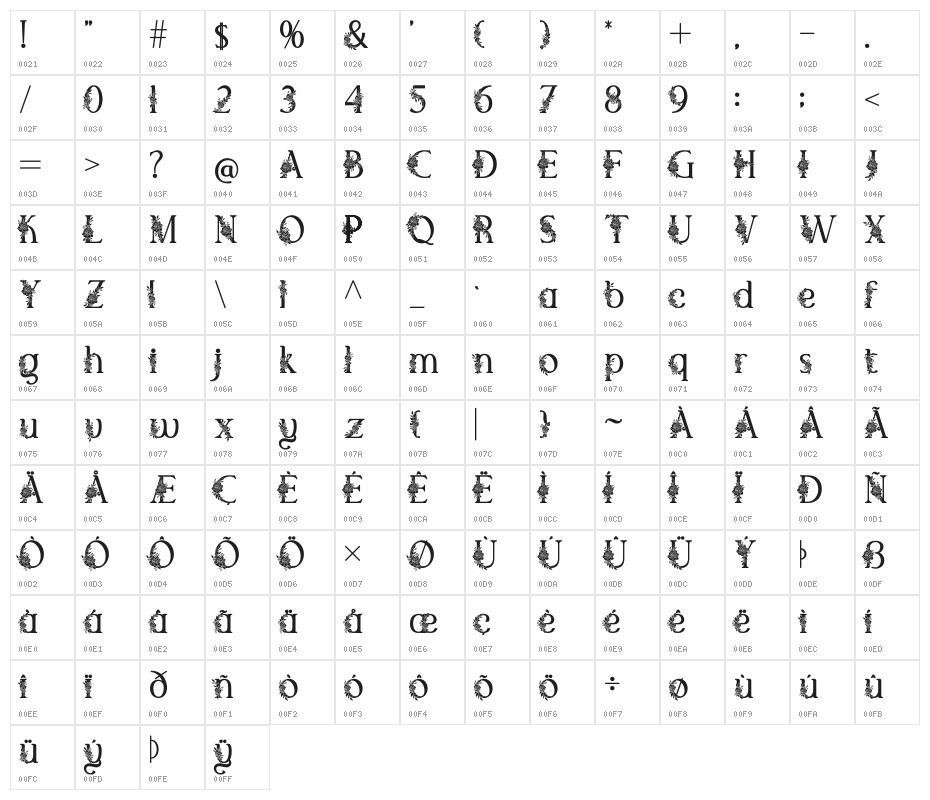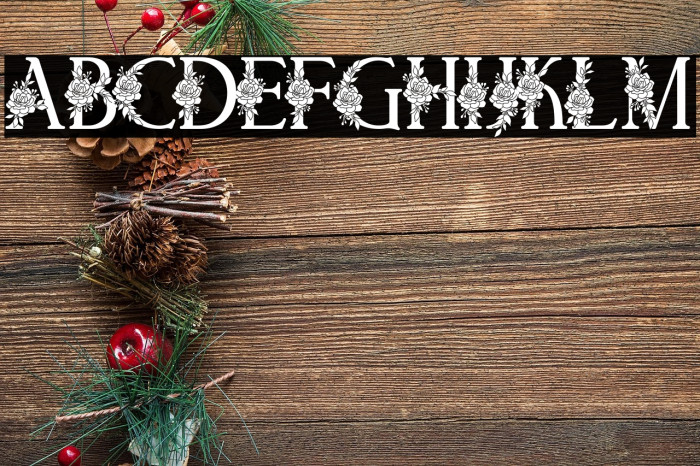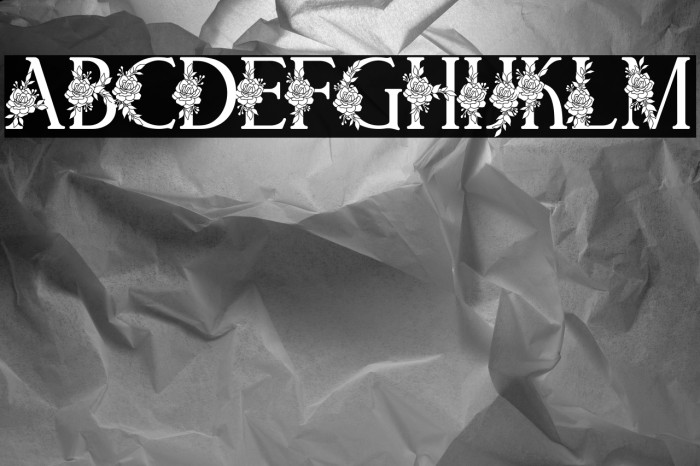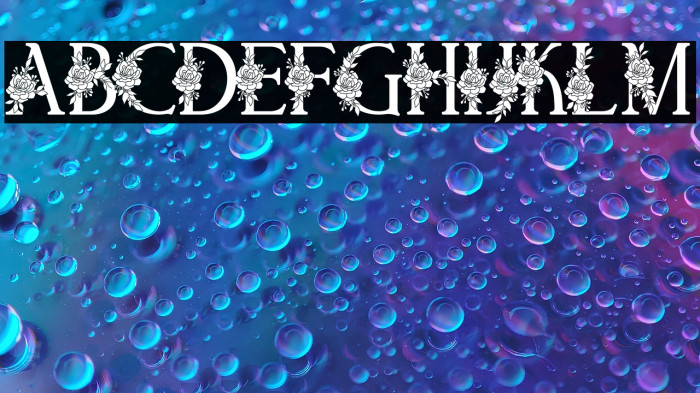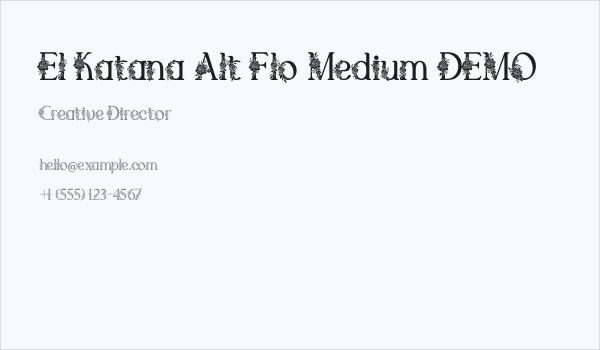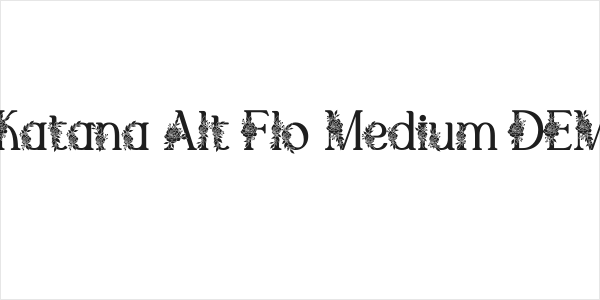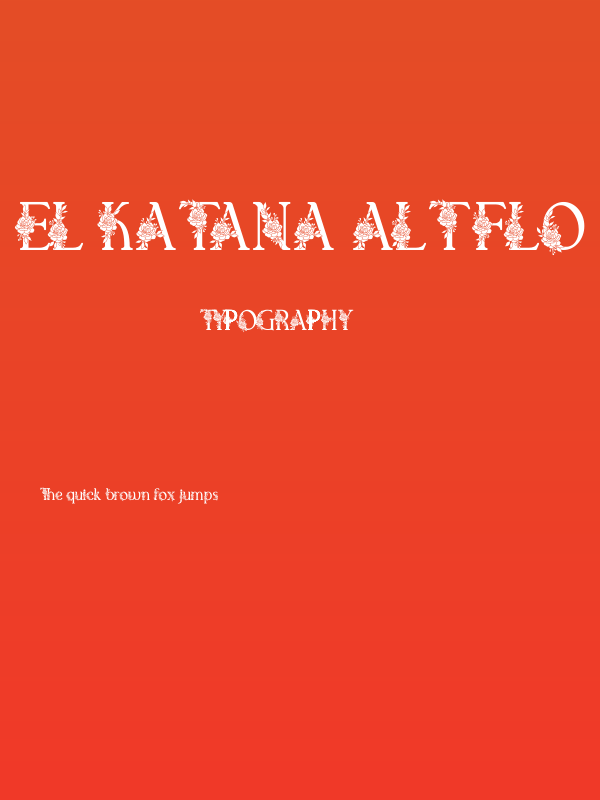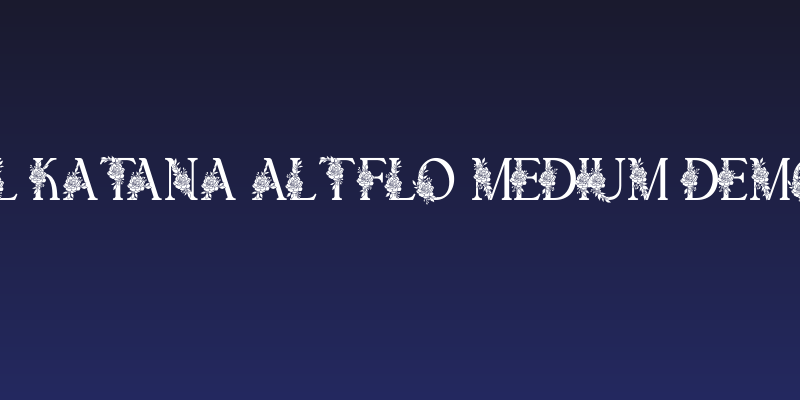
El Katana Alt Flo Medium DEMO Font
El Katana Alt Flo Medium DEMO Description
This font features a unique decorative style, incorporating intricate floral patterns into each character. The uppercase and lowercase letters, as well as numbers and special characters, are adorned with detailed floral embellishments, creating a visually striking and artistic appearance. The design merges traditional serif elements with modern decorative flair, making it stand out in any design project. The floral motifs are seamlessly integrated into the characters, adding a touch of elegance and sophistication. This font is ideal for projects that require a bold and artistic statement, such as invitations, posters, and branding materials.
| Use Case | Headlines, Logos, Artistic designs |
| Proposed Projects | Ideal for wedding invitations, event posters, branding, and artistic projects requiring a decorative touch. |